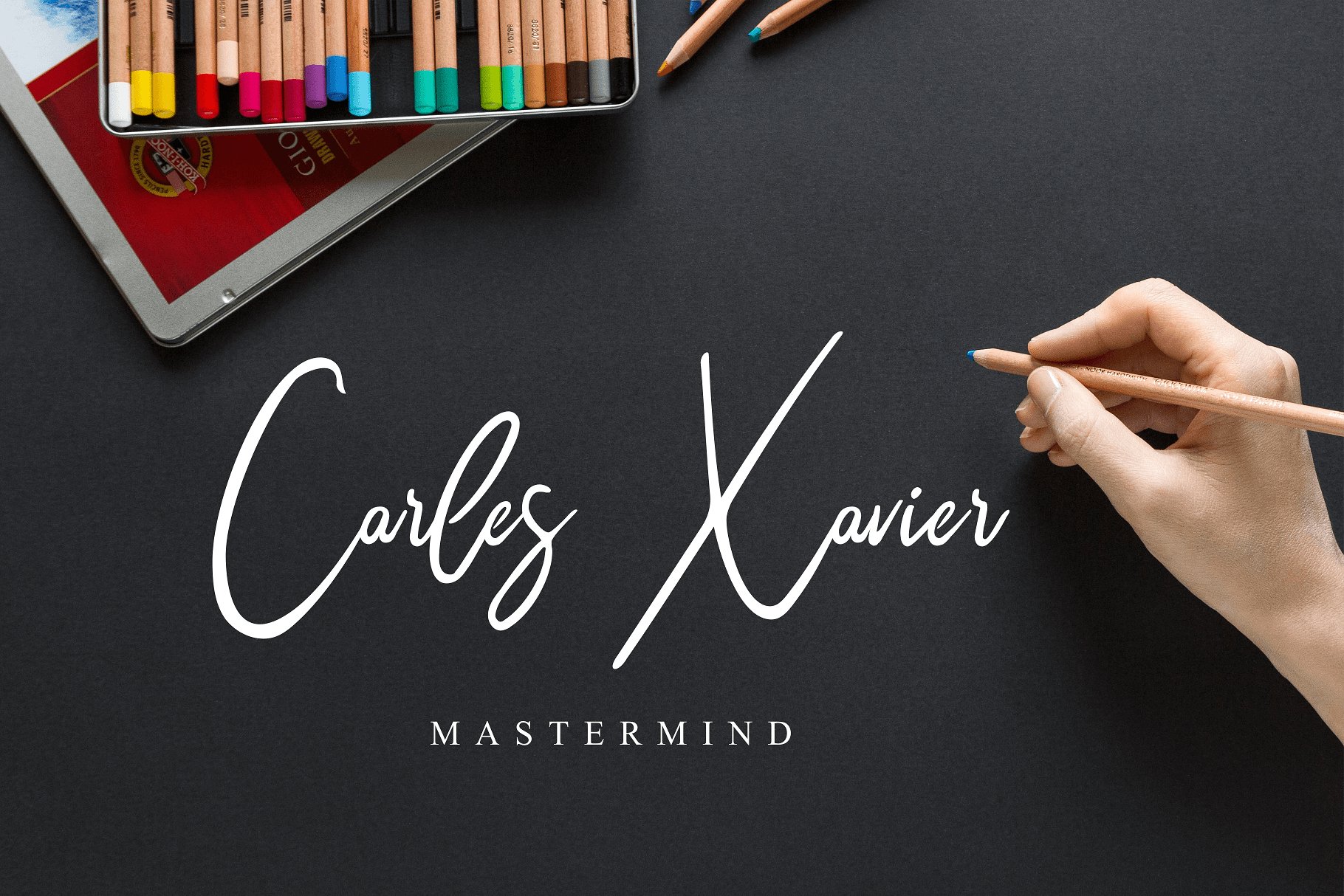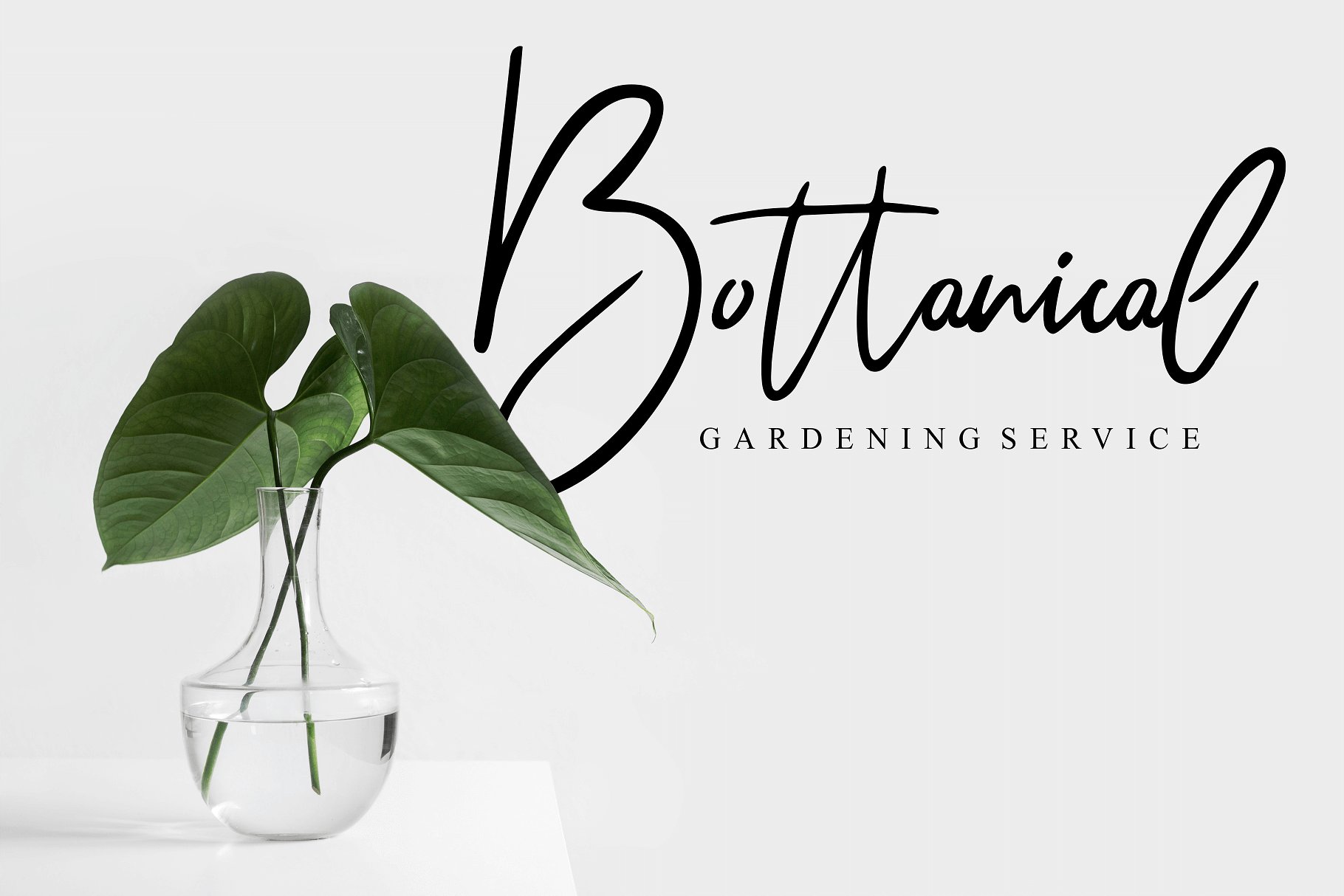
Wiltasso Signature Font
A new modern signature typeface. Add it to your fonts collection right away. Introducing Wiltasso Font. Wiltasso – a signature typeface. This font is made pure by handmade signature then. Perfect for quotes, invites, weddings, posters, signs, branding, logos, planner stickers, and much more!